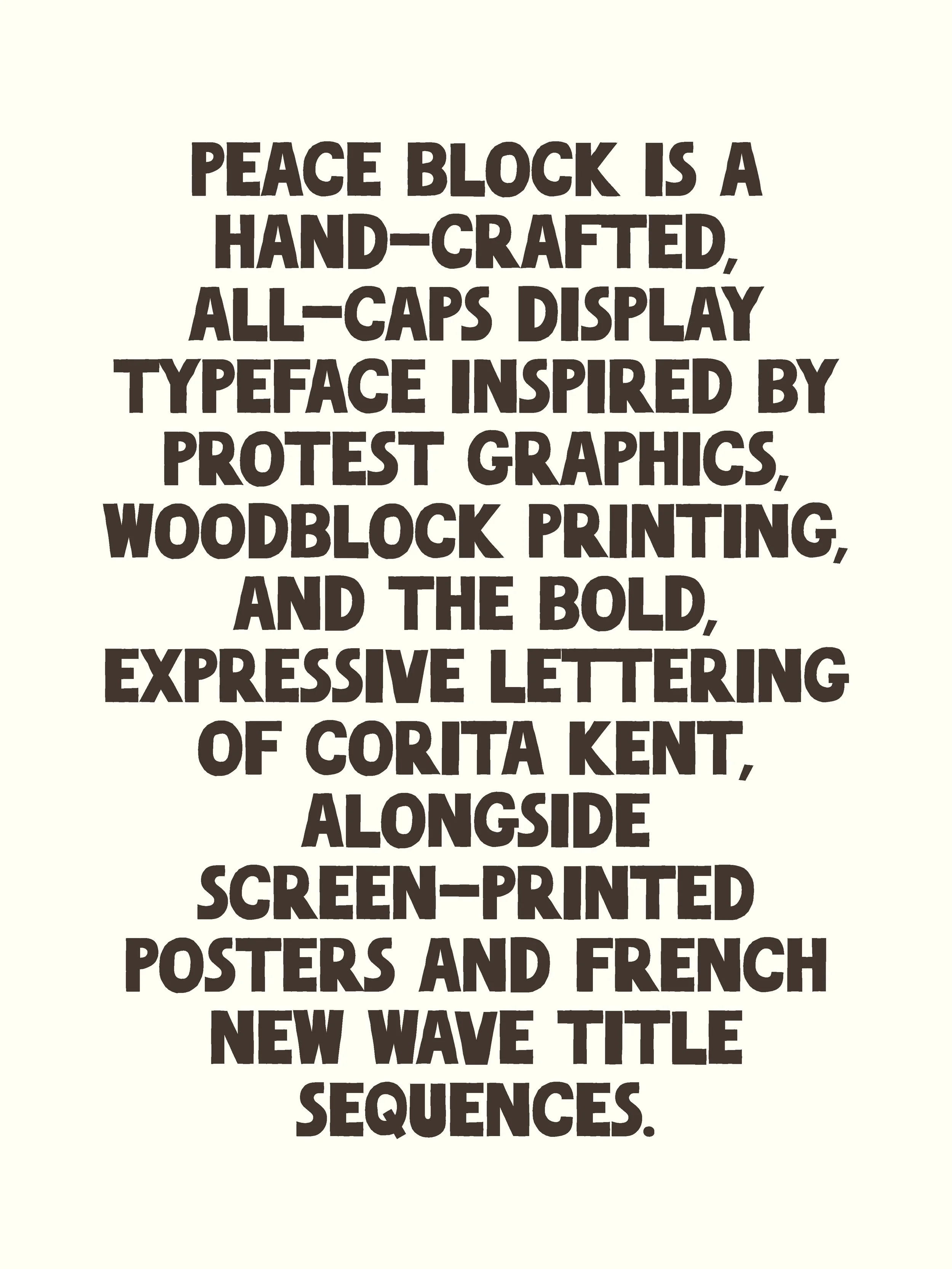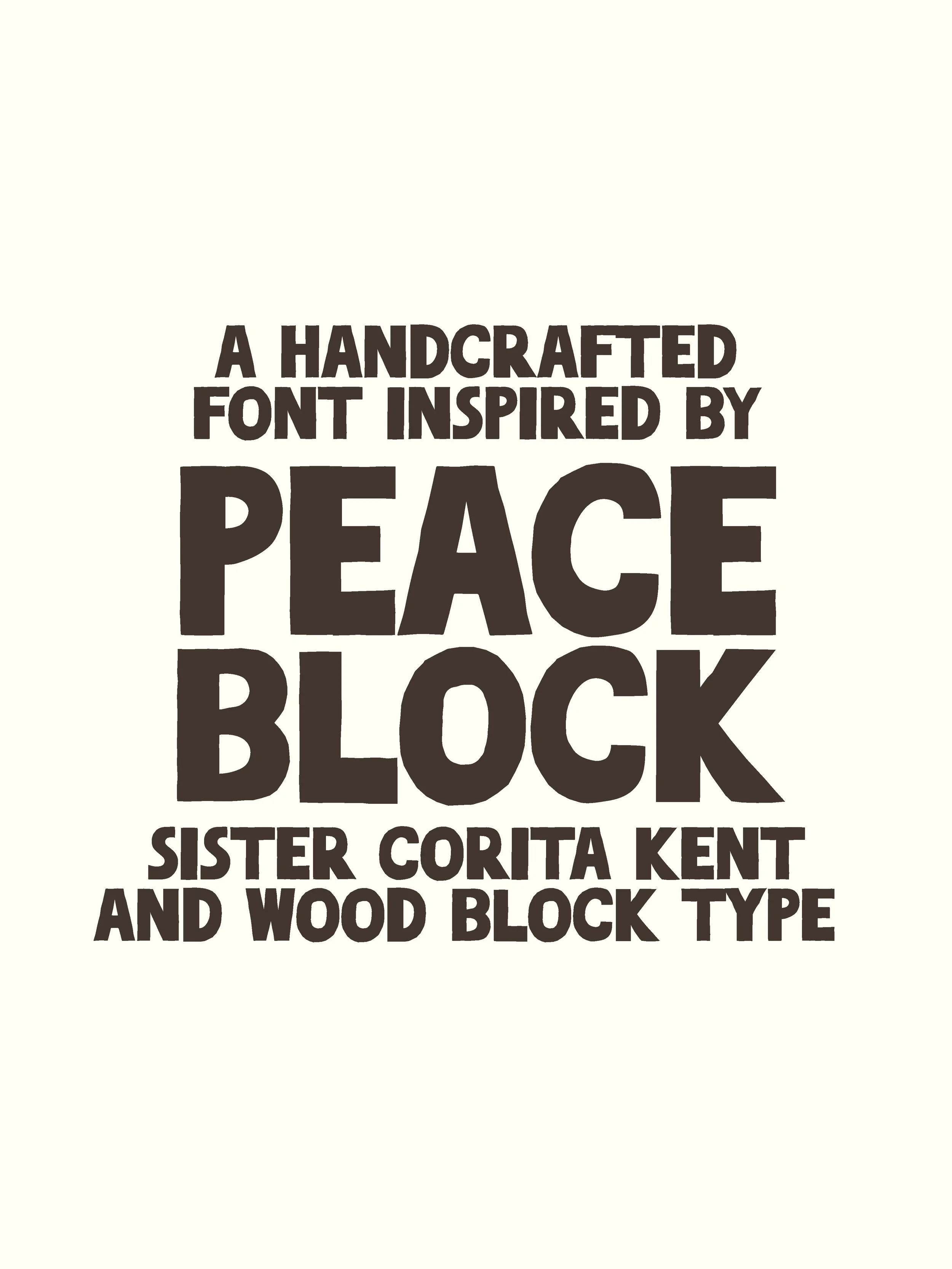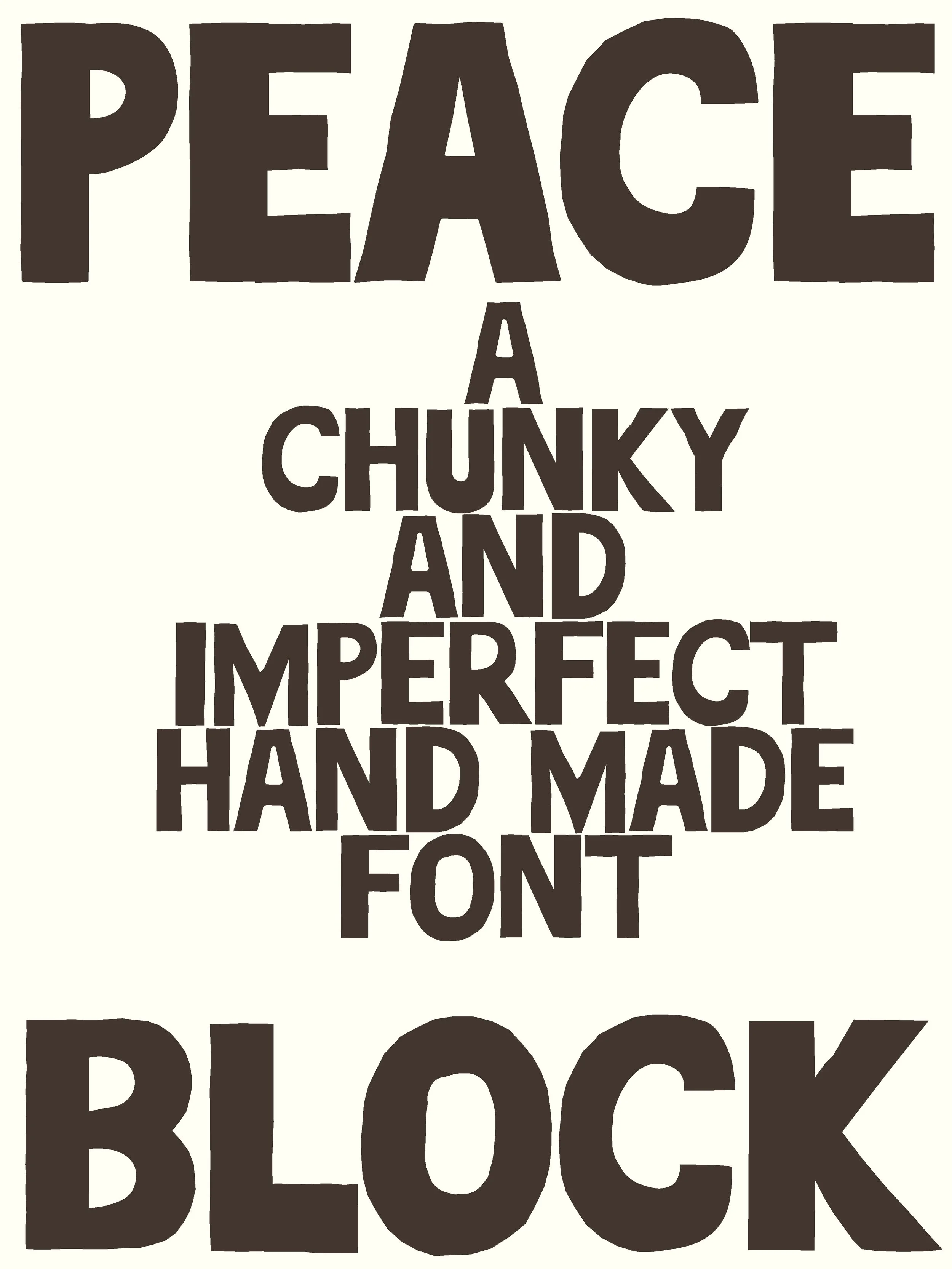
Peace Block | Hand Cut Font
Peace Block is a hand-crafted, all-caps display typeface inspired by protest graphics, woodblock printing, and the bold, expressive lettering of Corita Kent, alongside screen-printed posters and French New Wave title sequences. All made from scratch by hand.
Built from cut forms and imperfect edges, Peace Block embraces irregularity — each letter carrying a slightly different weight, rhythm, and shape. The result is a typeface that feels raw, human, and expressive, designed to sit comfortably within collage, print, and layered visual work.
With its all-caps structure, Peace Block is made for bold statements. The letterforms work best when played with — shifting spacing, overlapping, and building compositions that feel spontaneous and alive. It’s a font that invites experimentation, rather than perfection.
Perfect For
Branding & logos
Posters & protest-inspired graphics
Music artwork & band merchandise
Editorial layouts & creative direction
Packaging & independent brands
Social media graphics & campaigns
Uppercase A–Z (bold, block letterforms)
Lowercase a–z (a lighter, thinner variation of the uppercase forms for added contrast and creative play)
Numbers 0–9
A few special characters - ö, ä, ü and å
Minimal punctuation only